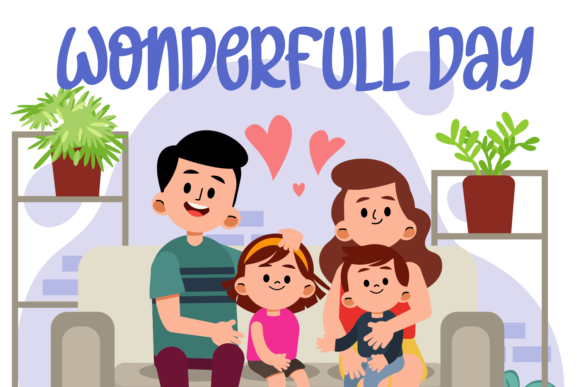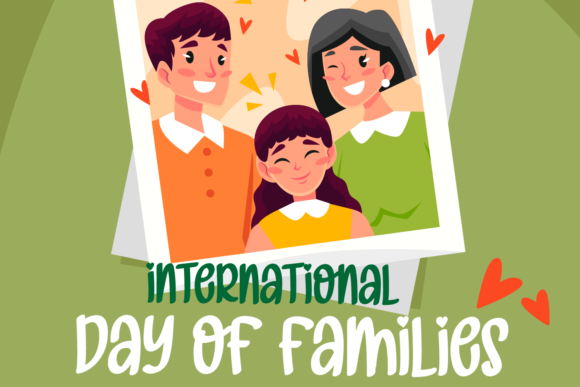
Life Family Font
db-ku.com - Script & Handwritten -- Life Family is a sweet, whimsical, flowing and quirky script font. Featuring characters that dance along the baseline, this font will add a luxury spark to any design project that you wish to create!